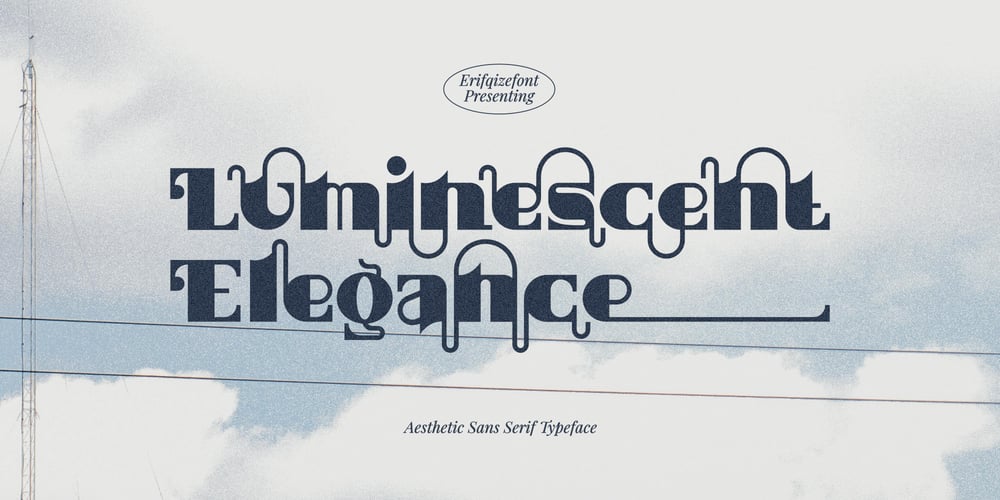
Luminescent Elegance
Luminescent Elegance font
Luminescent Elegance Font Family was designed by Eka Rifqi Setiawan and published by Erifqizefont. Luminescent Elegance contains 1 styles and family package options. Luminescent Elegance is a modern, elegant and aesthetic sans serif font. Luminescent Elegance is well-suited for advertising, branding, logotypes, packaging, titles, headlines and editorial design. I created more alternative variants and many natural ligatures to make this font very classy and look so beautiful. Luminescent Elegance was built with openType features make your project will be perfect.Thanks for purchasing and have fun!